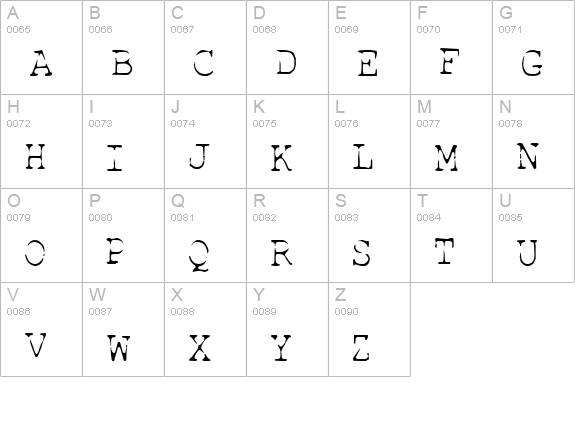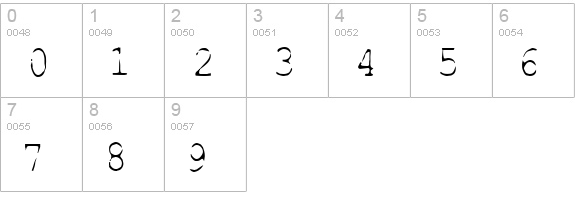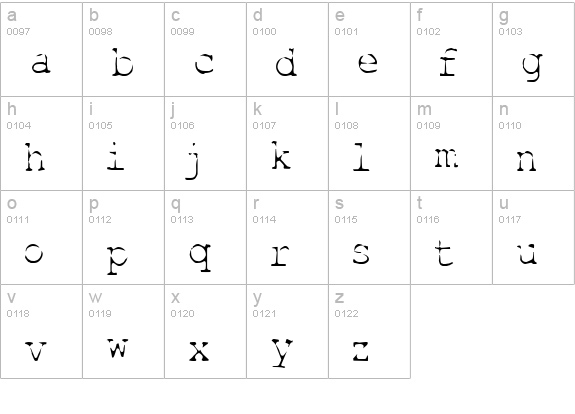
CK Gutenberg Font Details
CK Gutenberg is a classic serif font that exudes elegance and sophistication. With its timeless design and clean lines, this font is perfect for adding a touch of sophistication to any project. The CK Gutenberg font is versatile and can be used for various purposes, from branding and marketing materials to editorial designs and invitations. What sets CK Gutenberg apart is not only its timeless appeal but also the fact that it is freely available for download at FontsMarket.com. This means that you can easily access and use this stunning font in your projects without any cost. Whether you're a designer looking to elevate your work or an individual in need of a stylish font for personal use, CK Gutenberg is the perfect choice. Download it today and add a touch of class to your designs.